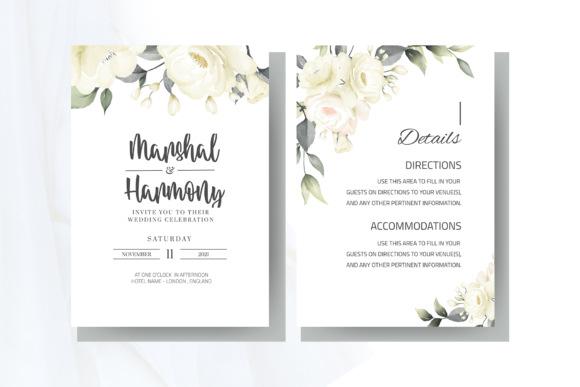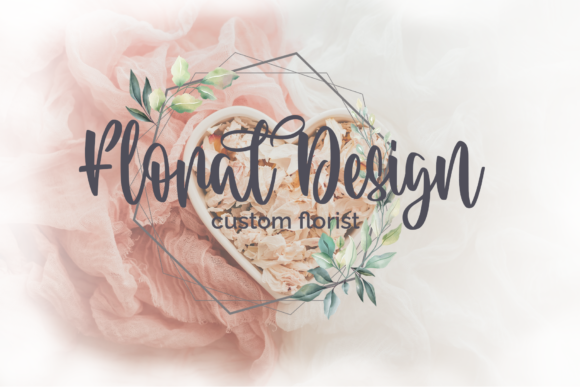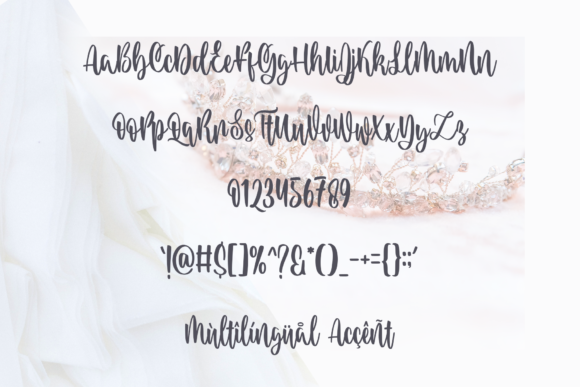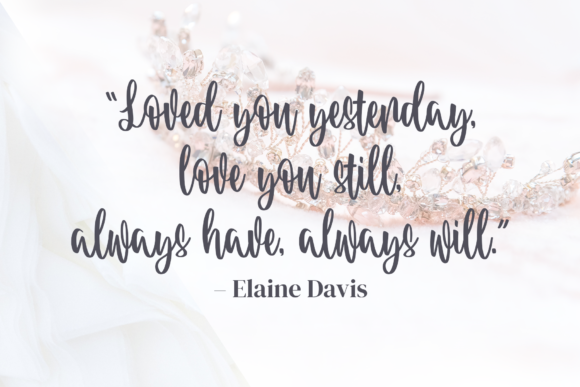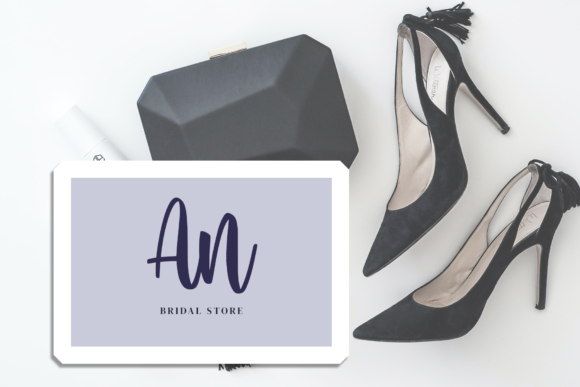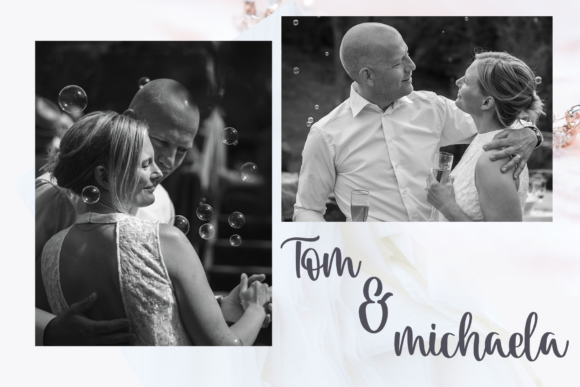
Bavella Font: Elevate Your Design with Luxury and Elegance
In the world of typography, fonts play a crucial role in conveying the tone and aesthetic of a design project. For designers and crafters seeking to add a touch of luxury and sophistication to their work, the Bavella Font is an exceptional choice. This beautiful, delicate handwritten font boasts a unique feel and a stunning impact, making it perfect for a wide range of design applications.
The Beauty of Bavella Font
Bavella Font is a masterpiece of typographic design, characterized by its elegant and refined strokes. Its delicate nature gives it a distinctive charm that can instantly elevate the visual appeal of any design project. Whether you’re working on a branding project, packaging design, or digital content, Bavella Font is sure to leave a lasting impression on your audience.
Unique Features of Bavella Font
- Handwritten with love: Bavella Font is carefully crafted with a personal touch, giving it a warm and inviting feel that’s perfect for designs that require a human touch.
- Delicate and elegant: The font’s slender strokes and refined lines make it an ideal choice for designs that require a touch of sophistication and luxury.
- Unique feel: Bavella Font has a distinctive character that sets it apart from other fonts, making it perfect for designers who want to create unique and memorable designs.
- Stunning impact: The font’s elegant design and refined lines make it perfect for creating stunning visual effects that will leave your audience in awe.
Why Choose Bavella Font?
For designers and crafters looking to add a touch of luxury and sophistication to their work, Bavella Font is an excellent choice. Here are just a few reasons why:
- Versatility: Bavella Font is suitable for a wide range of design applications, from branding and packaging to digital content and more.
- Ease of use: The font is easy to read and works well in both large and small sizes, making it perfect for designs that require flexibility.
- Timeless appeal: Bavella Font’s classic design ensures that it will remain a stylish and relevant choice for years to come.
How to Use Bavella Font in Your Design Projects
- Pair it with other fonts: Bavella Font works well with other fonts, so feel free to experiment with different combinations to create unique and interesting visual effects.
- Use it for headings and titles: The font’s elegant design makes it perfect for headings and titles, where it can add a touch of luxury and sophistication.
- Experiment with colors and textures: Bavella Font works well with a range of colors and textures, so don’t be afraid to experiment and find the perfect combination for your design.
In conclusion, Bavella Font is a beautiful and delicate handwritten font that can add a touch of luxury and sophistication to any design project. Its unique feel, stunning impact, and versatility make it an excellent choice for designers and crafters looking to elevate their work. Whether you’re working on a branding project, packaging design, or digital content, Bavella Font is sure to deliver impressive results. So why wait? Add Bavella Font to your design toolkit today and experience the power of luxury typography for yourself.